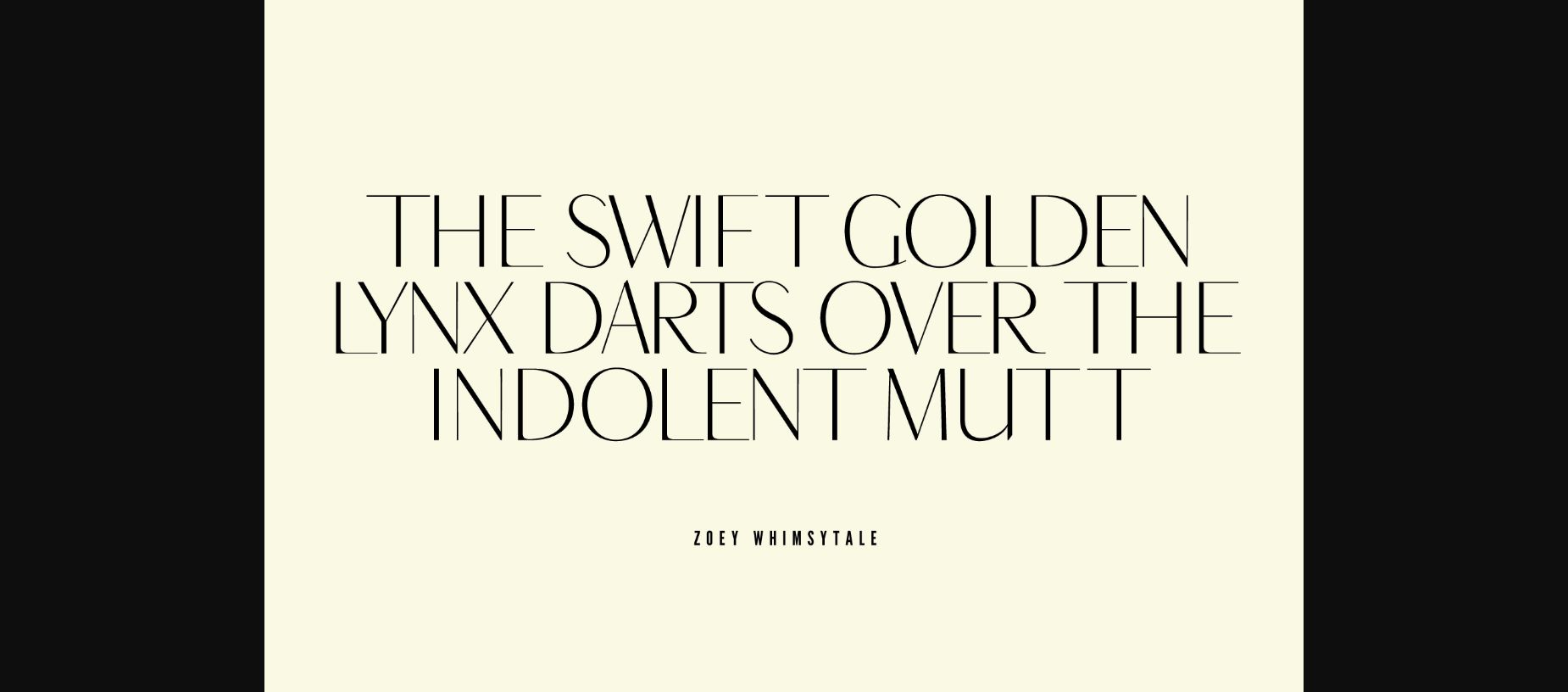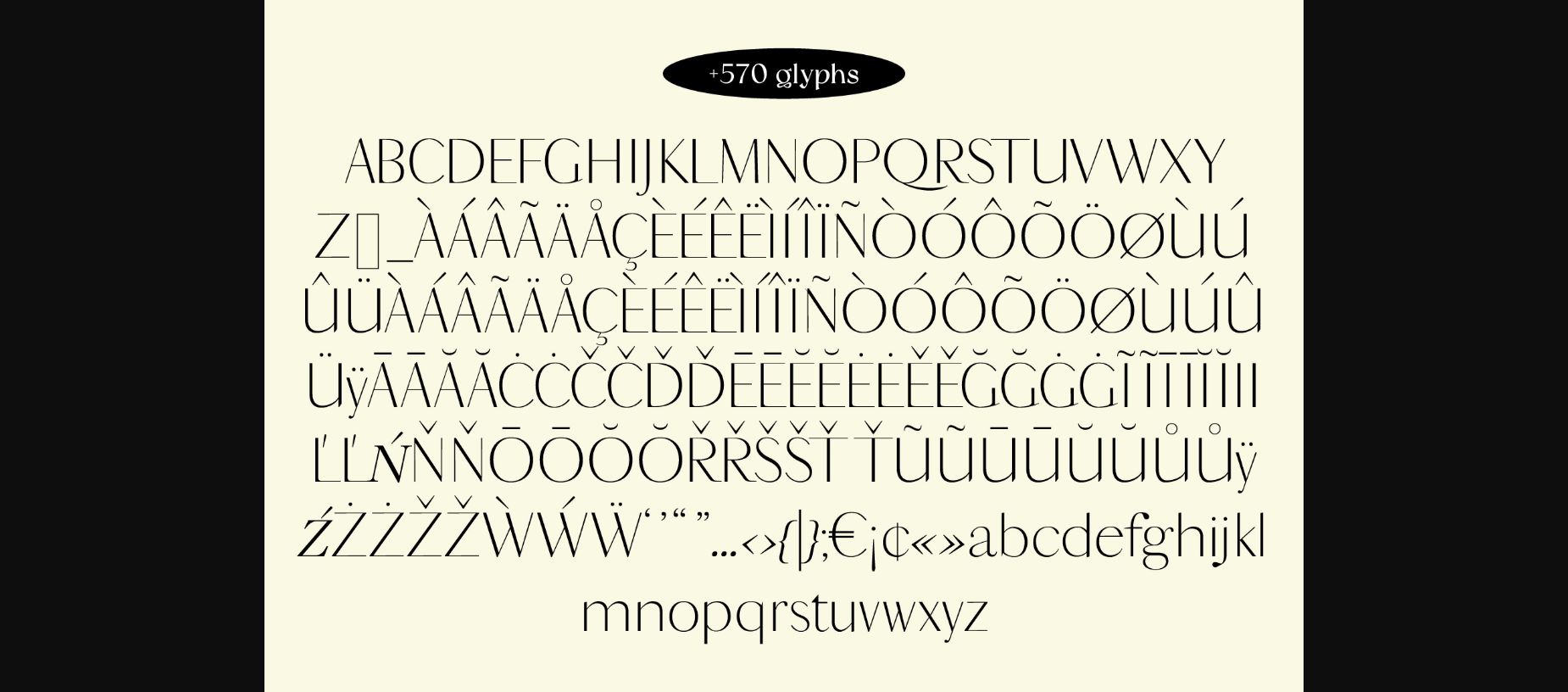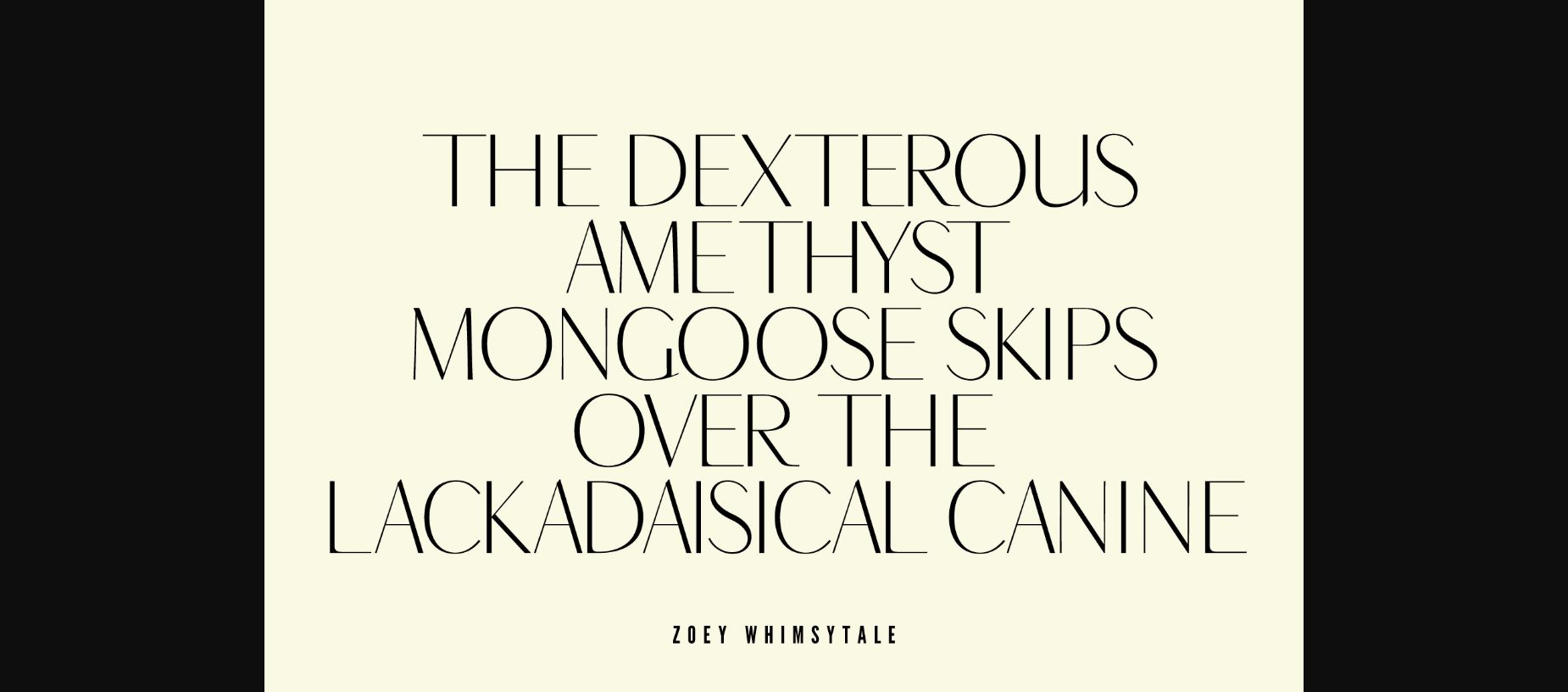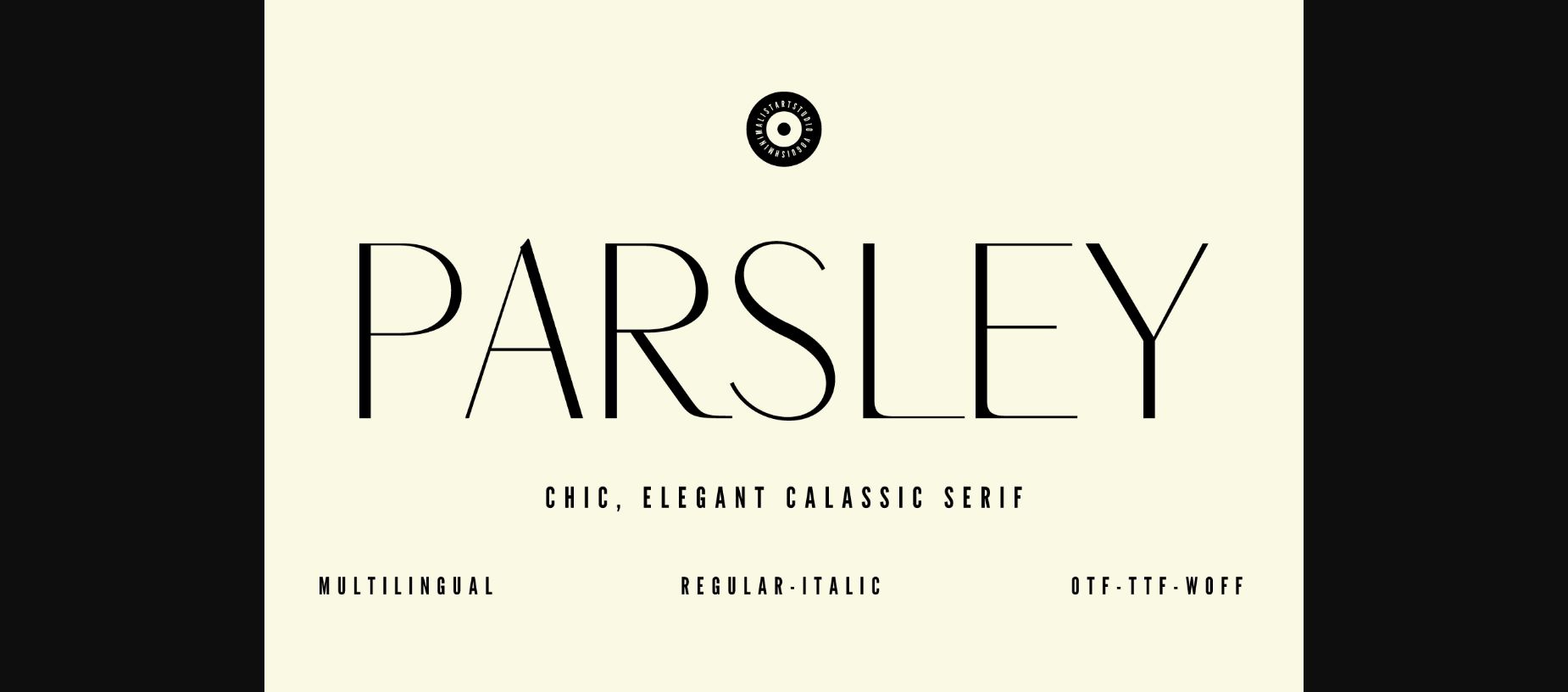
About Parsley Font
Introducing “Parsley” – a chic and elegant sans serif typeface that effortlessly blends modern minimalism with timeless sophistication. Its clean lines and graceful curves make it perfect for both digital and print designs, from branding materials to web graphics. With a range of weights and styles, “Parsley” lets you convey any mood while ensuring clear communication and a lasting impact. Elevate your design projects with the modern charm of “Parsley” and redefine the art of visual communication.